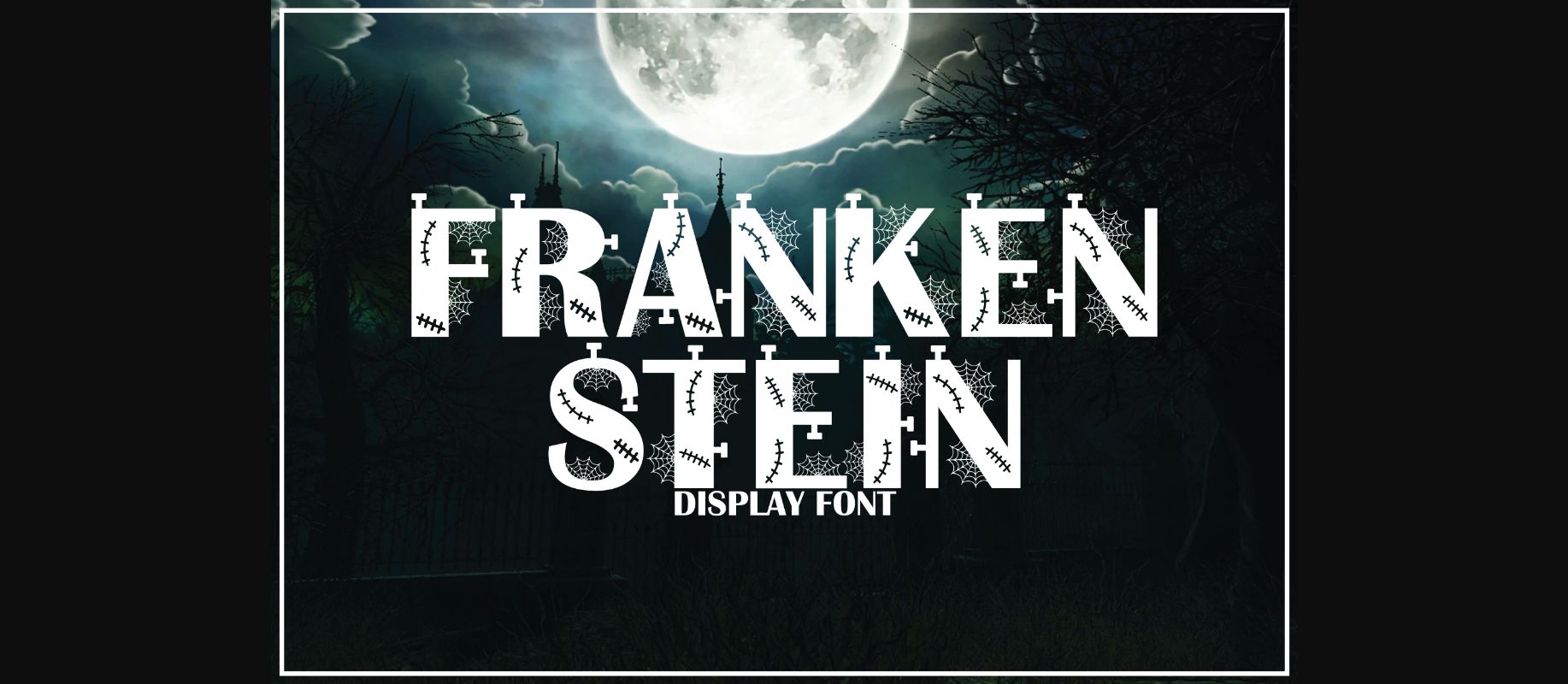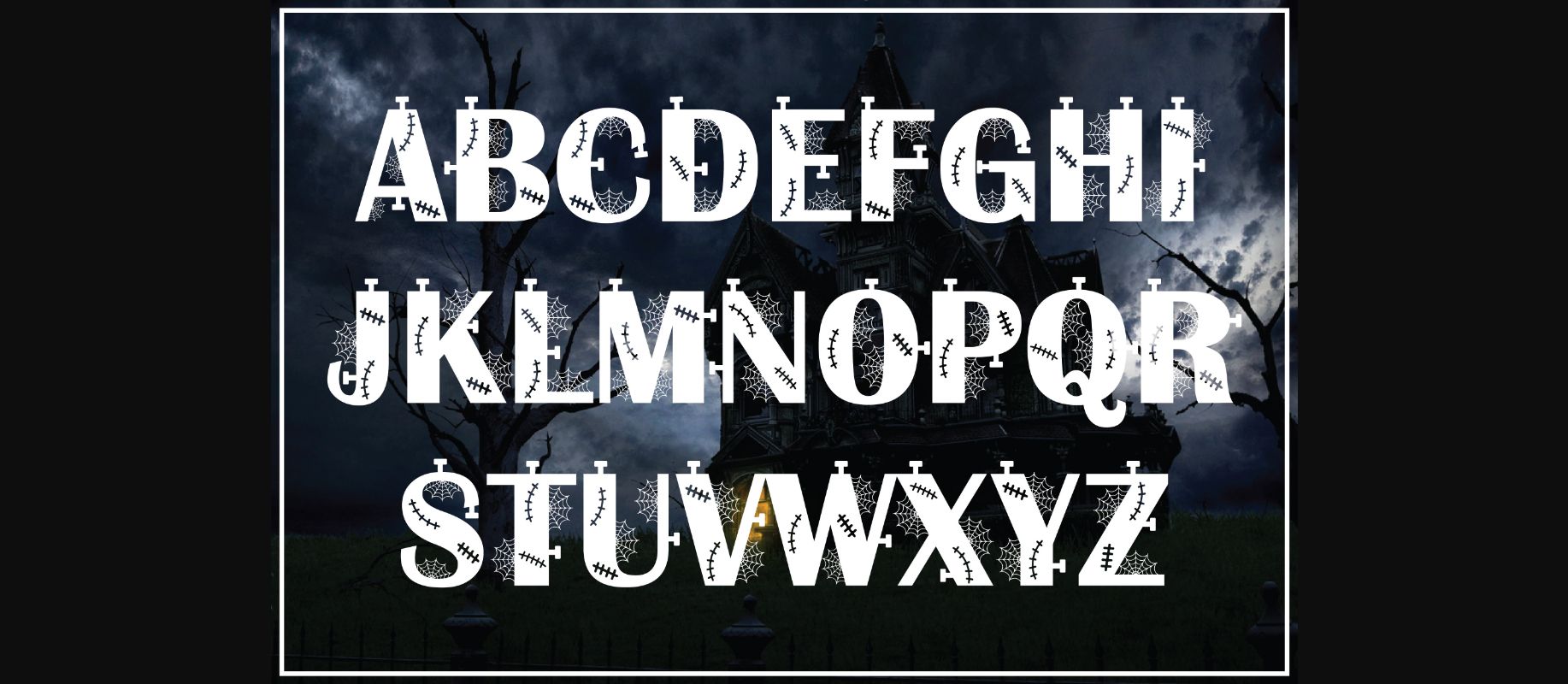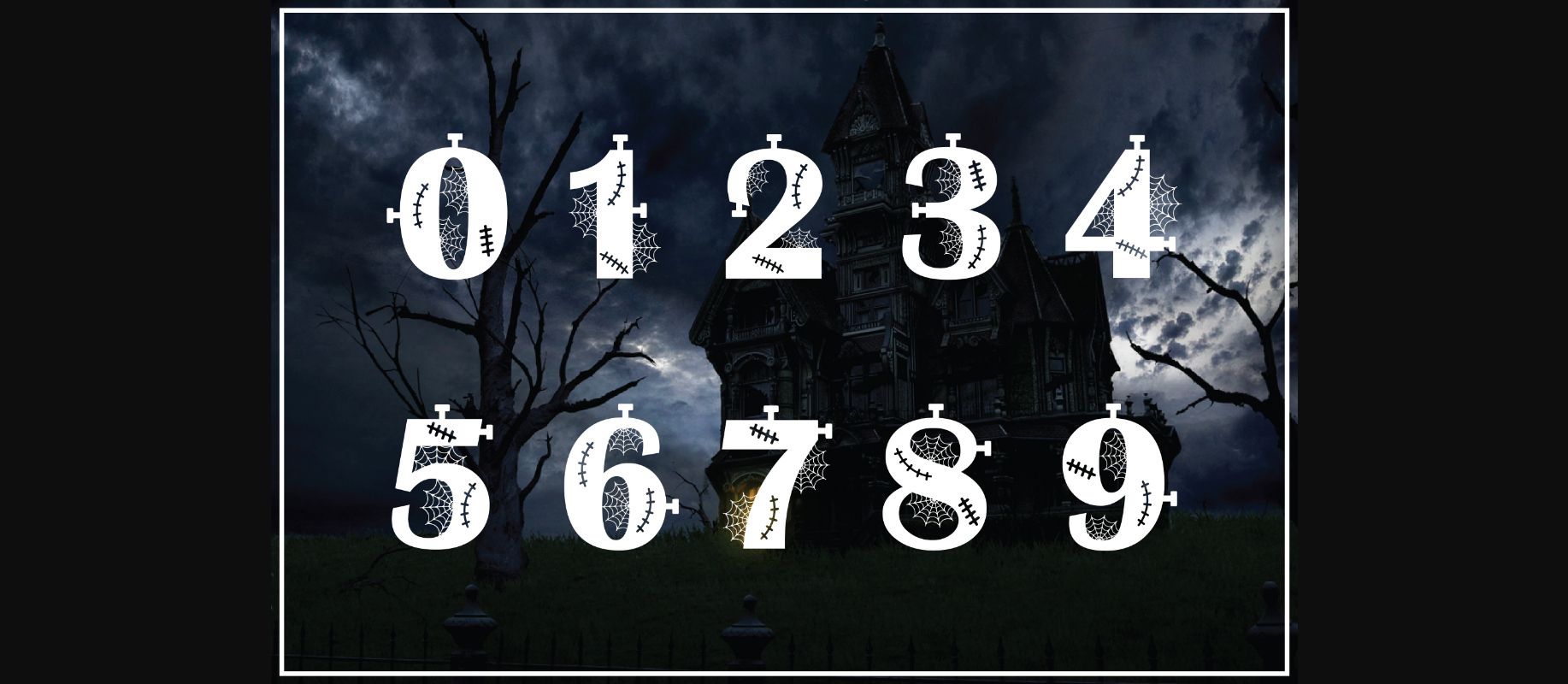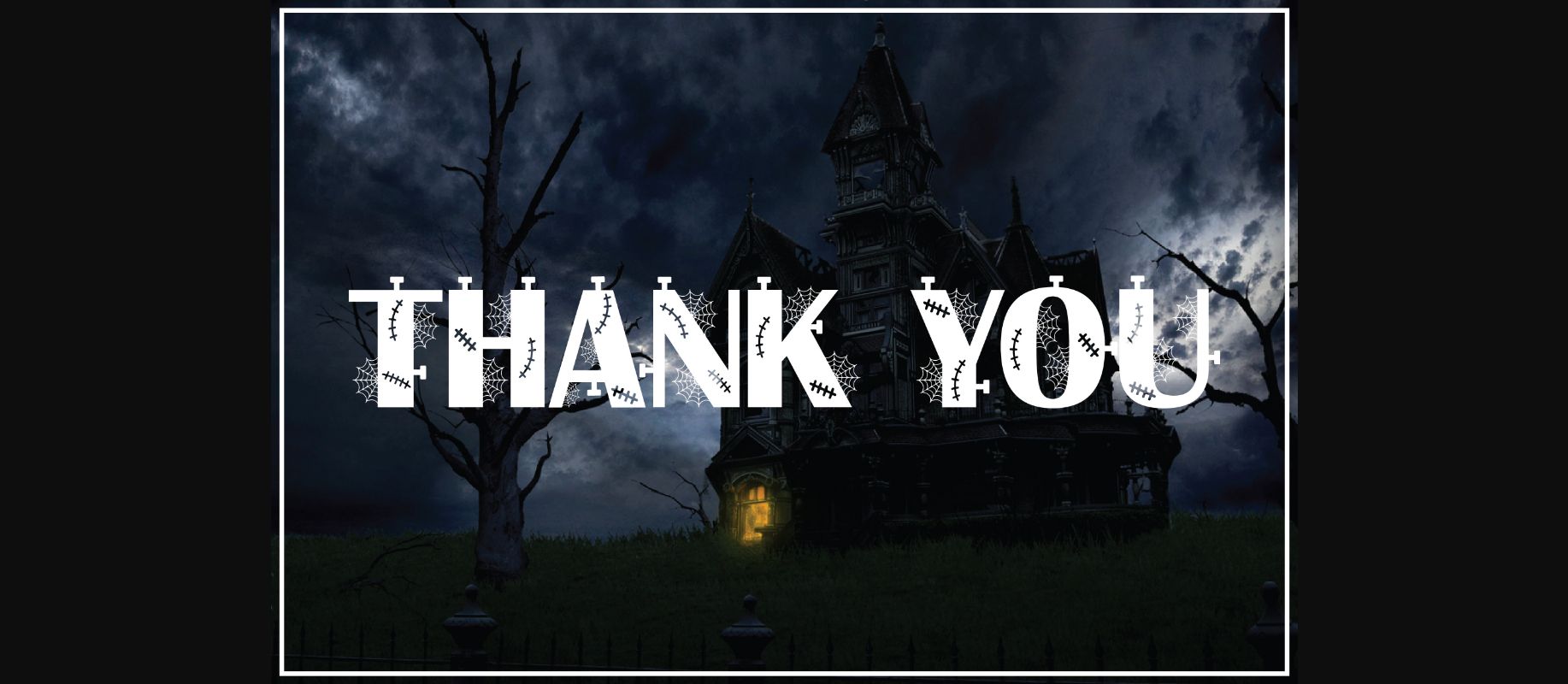
Frankenstein Font
About Frankenstein Font
Frankenstein is a thick lettered and incredibly unique decorative display font. It can be used for various design ideas, particularly those related to children’s games, science, and space exploration.